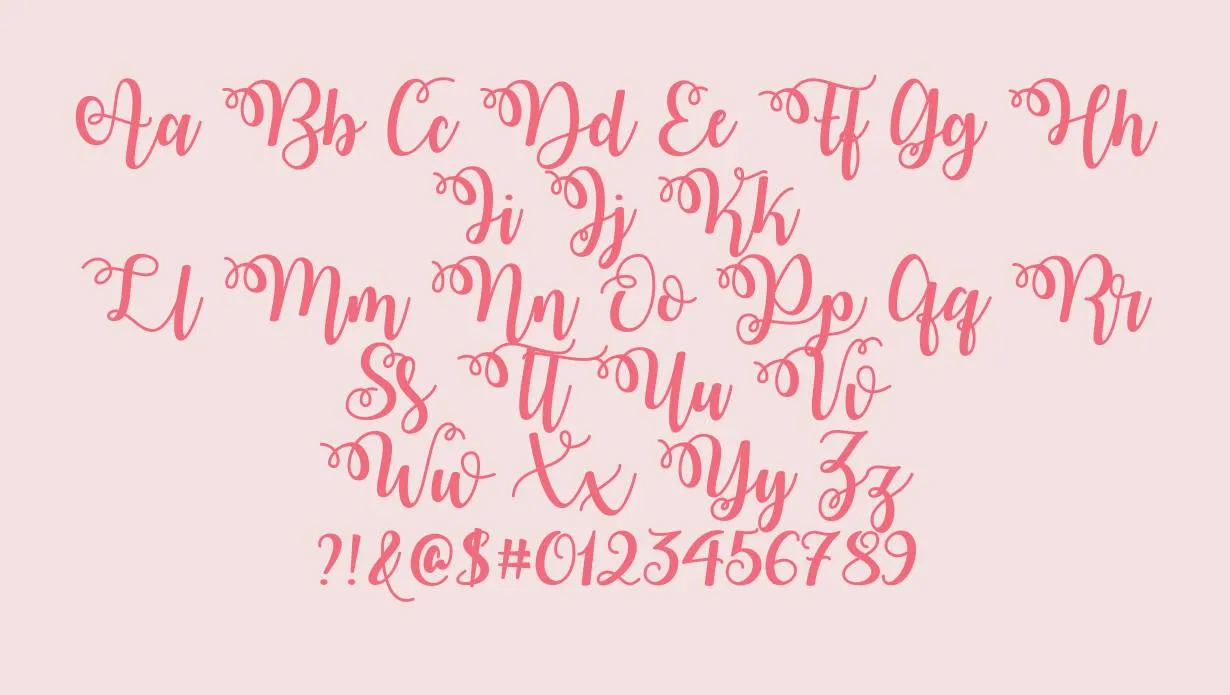
Watermelon Script Font is like a fancy dance for your words. It has a playful and flowing style, almost like beautiful handwriting.
This font adds a personal touch to your writing, making it great for creative projects such as invitations or cards. It’s like adding a brush of artistic expression to your words, making them feel alive and vibrant.
| Name | Watermelon Script Font |
| Designer | Misti's Fonts |